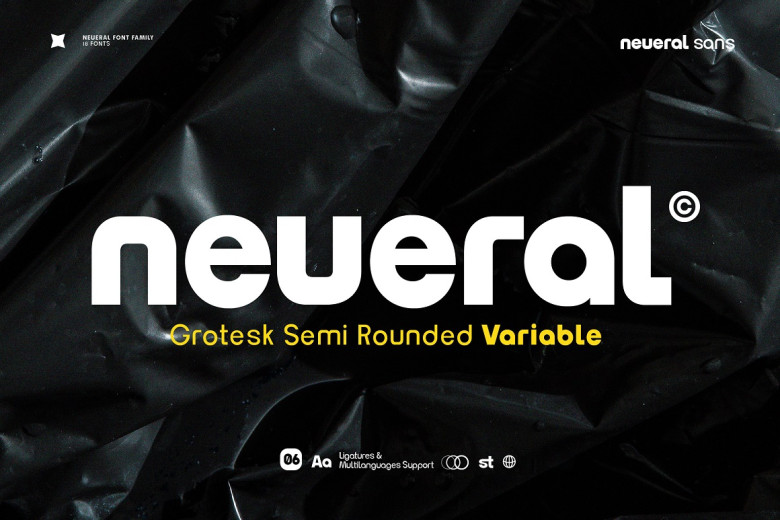
Neueral Grotesk Variable Font
Neueral Grotesk Variable Font is a versatile semi-round, semi-square sans-serif font that represents characteristics such as flexibility and modernity in every glyph. It features a neutral, yet simple and practical design and is ideal for use in designing logos, articles, wayfinding systems, branding and business cards as well. This font has a family of 18 typefaces, including Latin simple ligatures, which can provide you with a rich variety of typographic possibilities.
Neueral Grotesk Variable Sans Serif Font